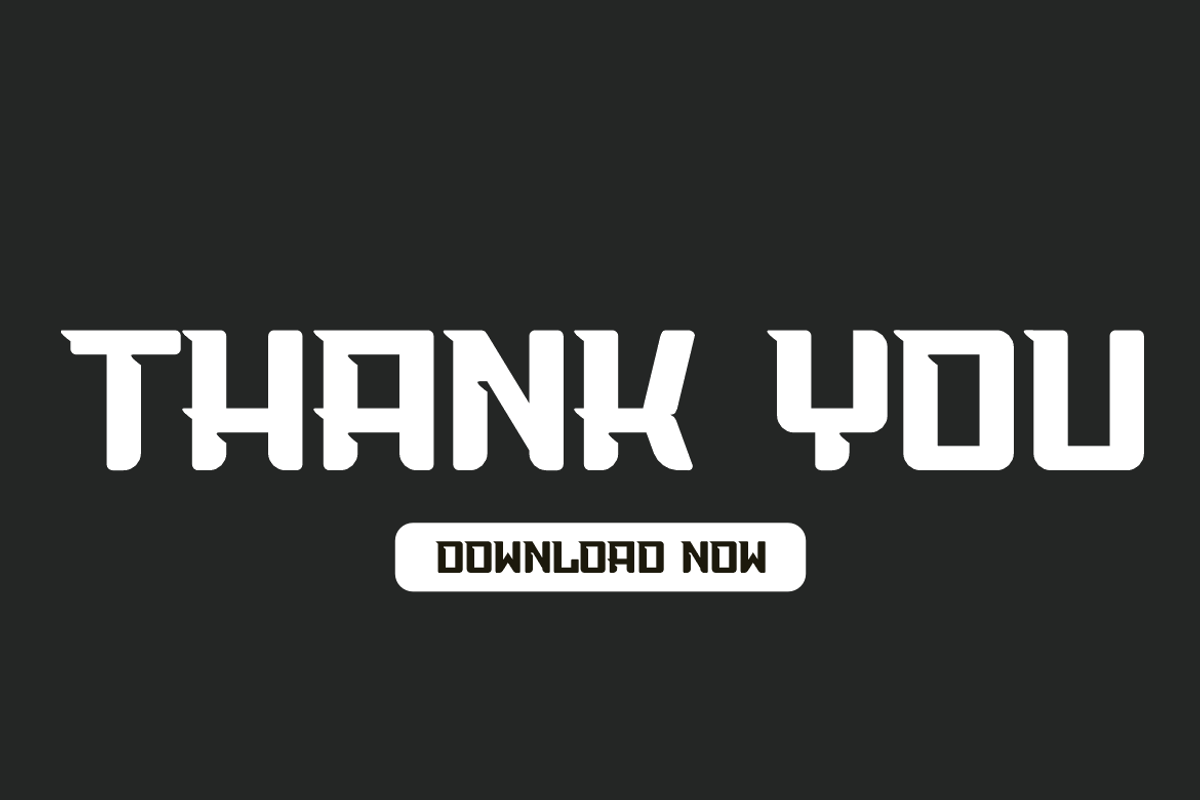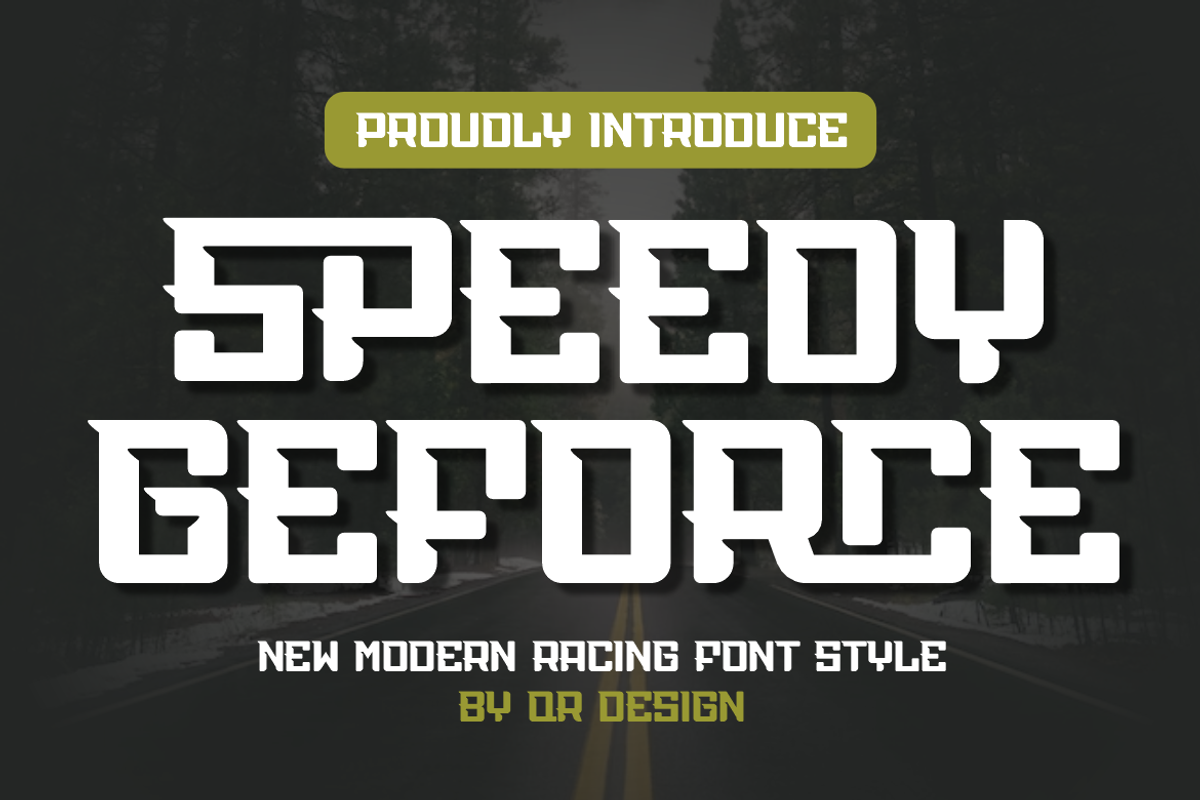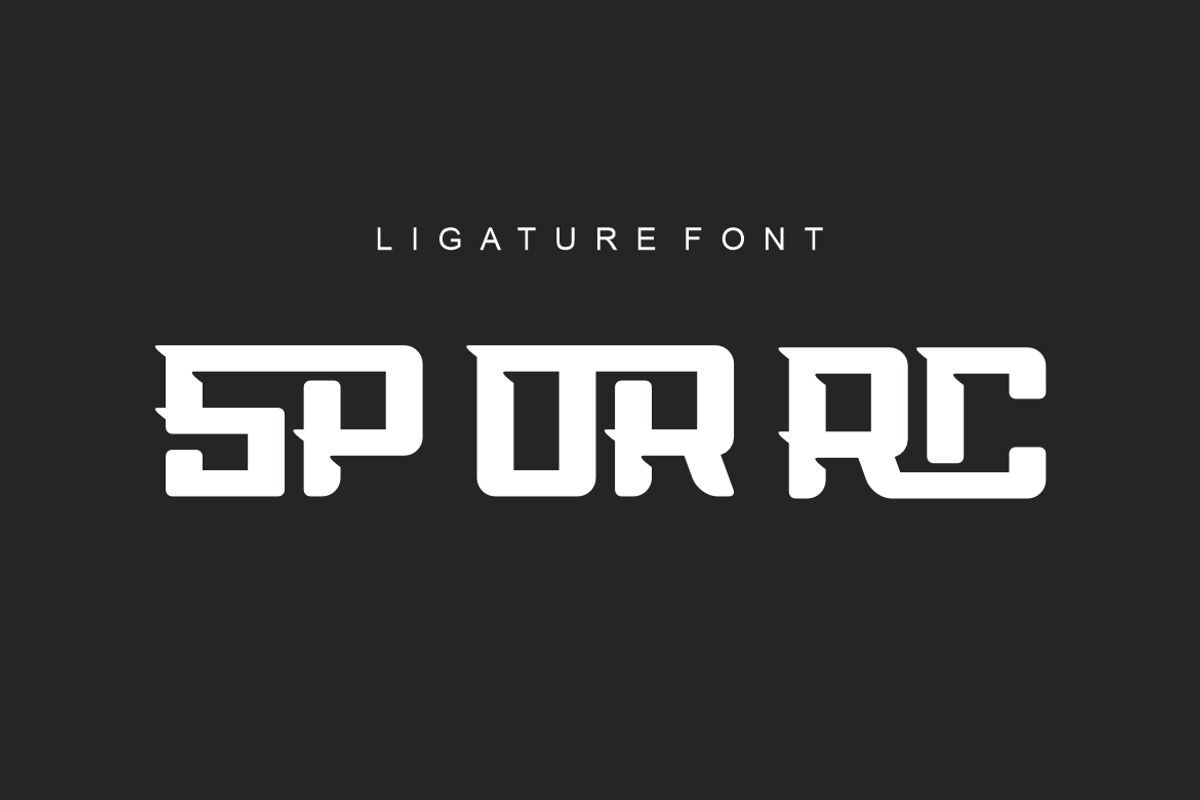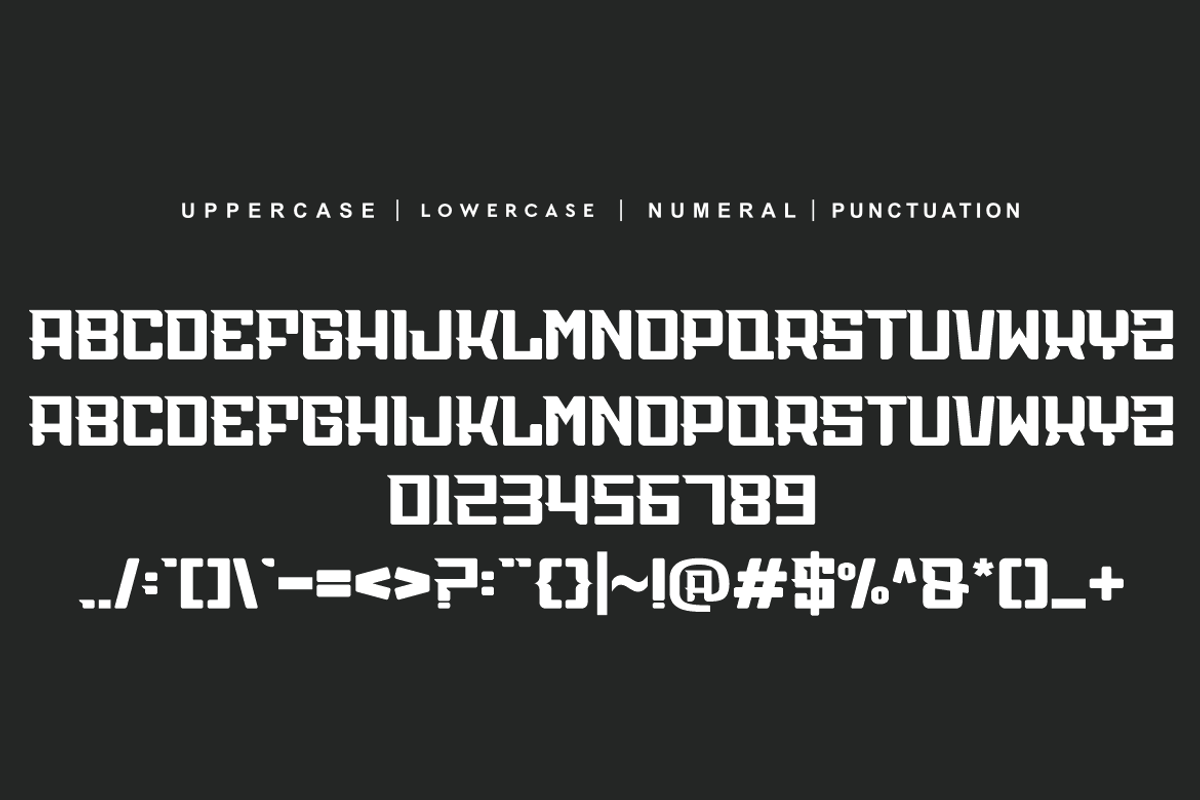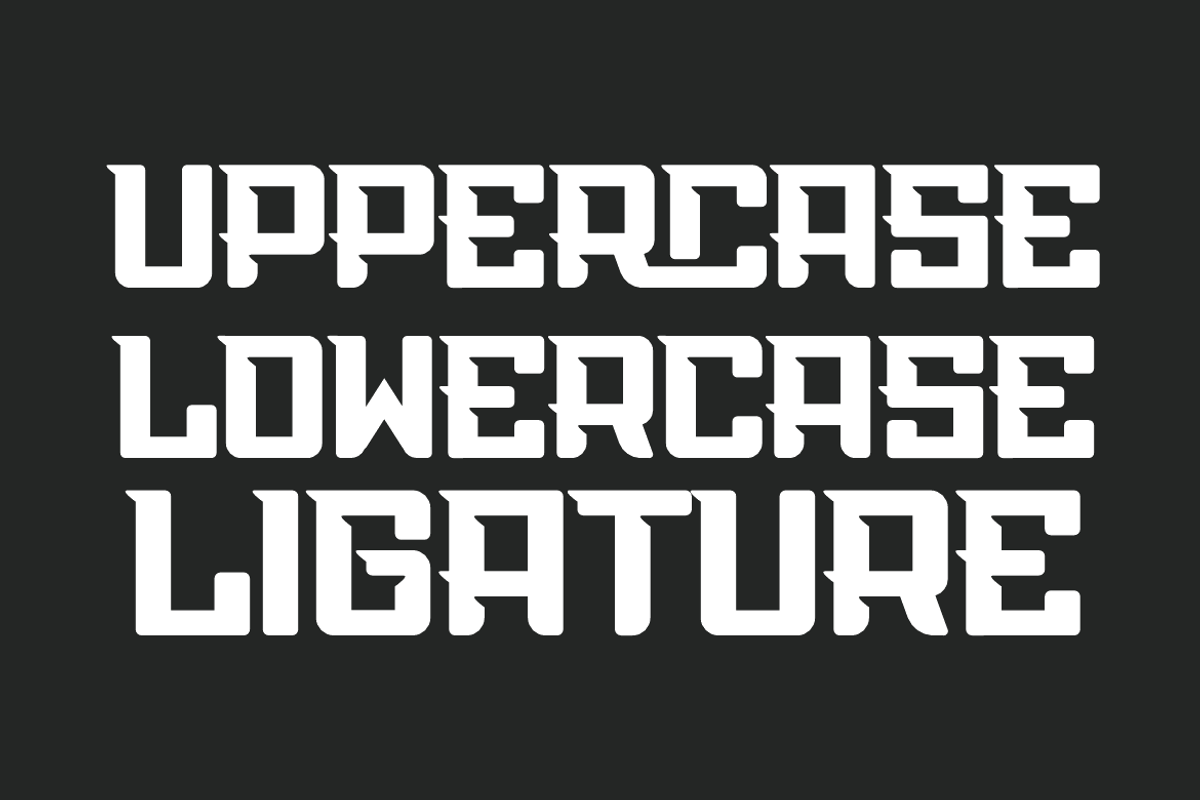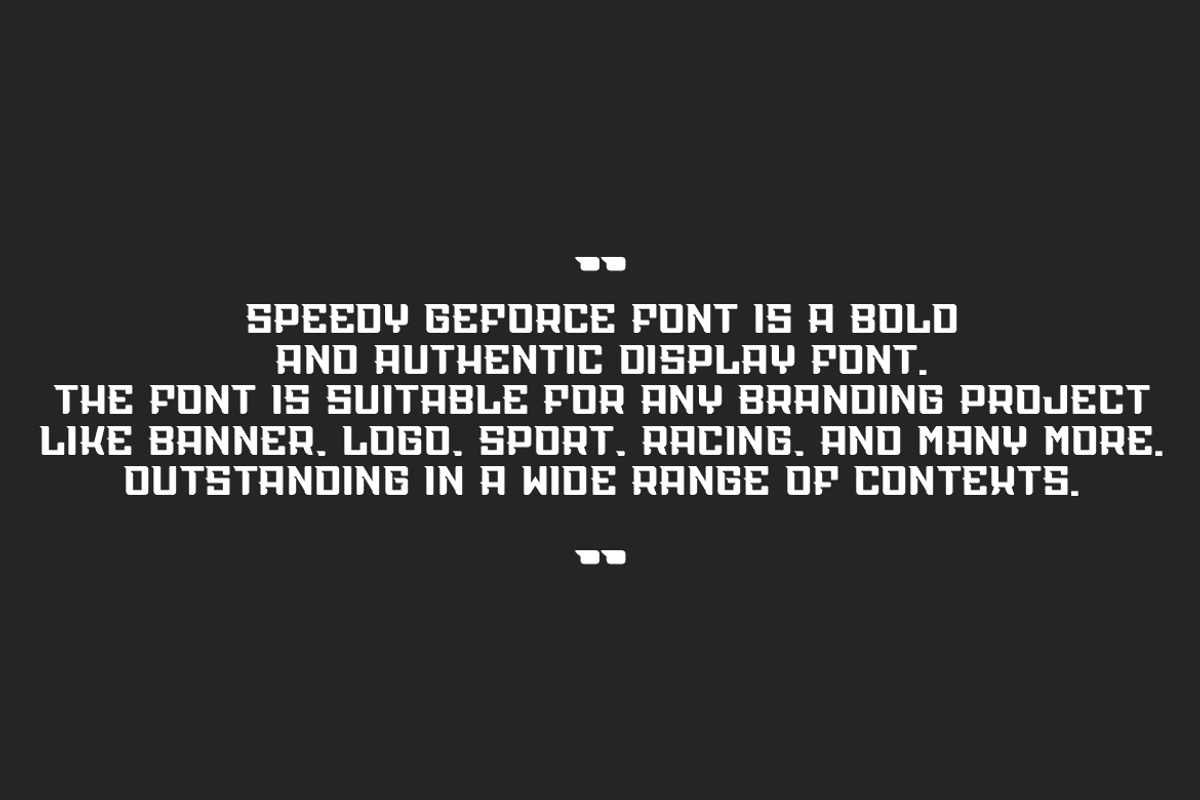
Speedy Geforce
Speedy Geforce Font is a bold and authentic display font. The font is suitable for any branding project like logo, sport, racing, and many more. Outstanding in a wide range of contexts.